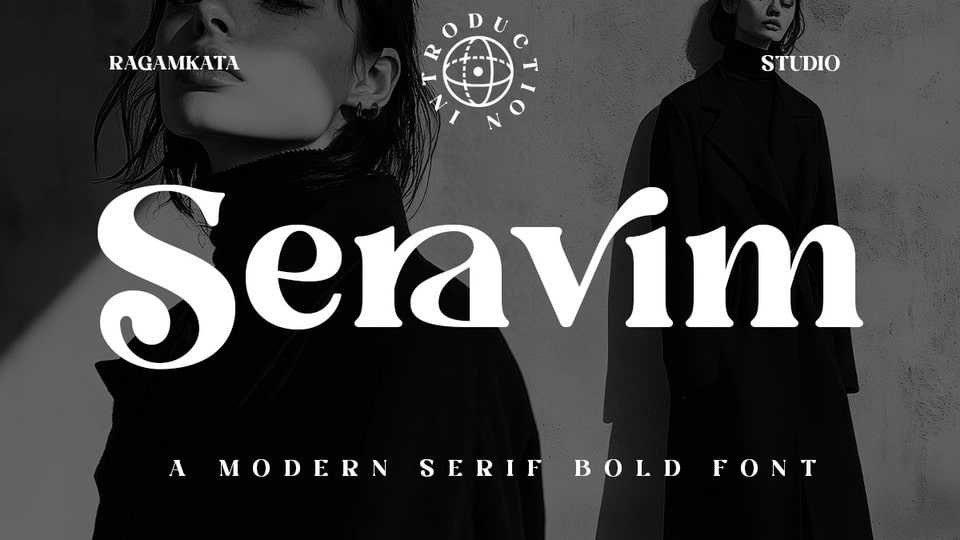
Download Seravim font, a modern bold serif typeface will bring back the classic atmospheres of vintage ads! It is your new go-to font for that authentic retro look in your artwork.